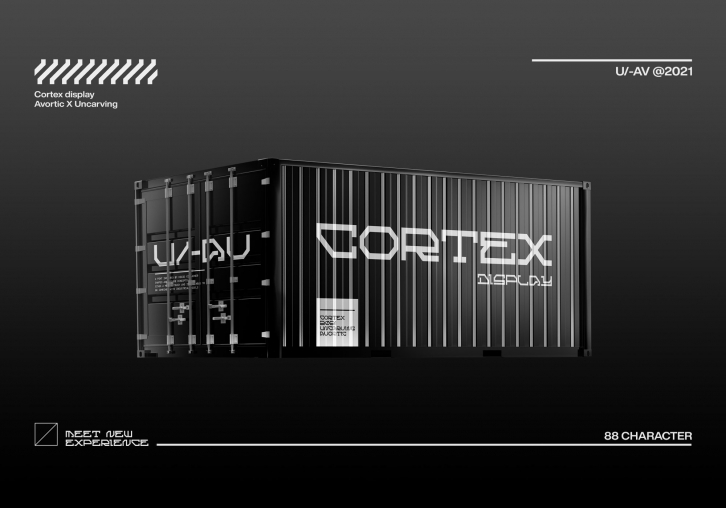
"CORTEX" IS A FONT DESIGNED BY UNCARVING AND AVORTIC
A FONT INSPIRED BY RIGID CONTAINER SHAPES AND FUTURE CONCEPTS GIVES A MODERN TOUCH AND IS SUITABLE TO BE COMBINED WITH INDUSTRIAL MODELS